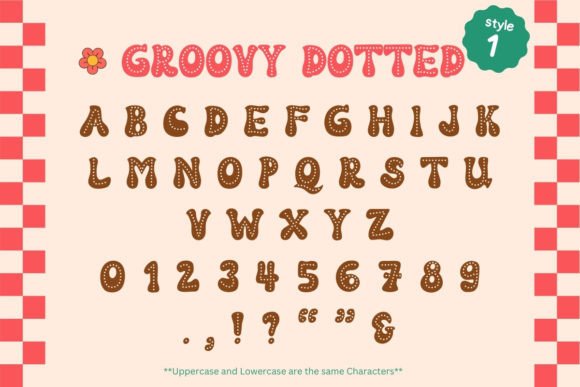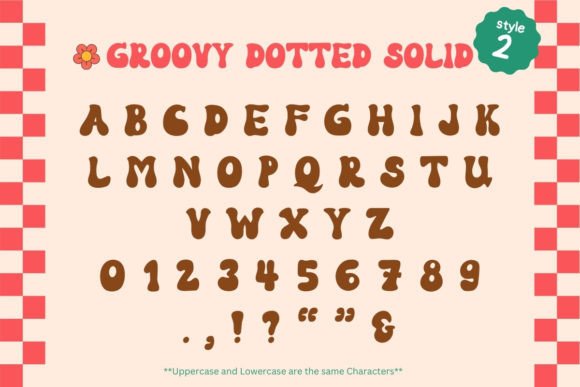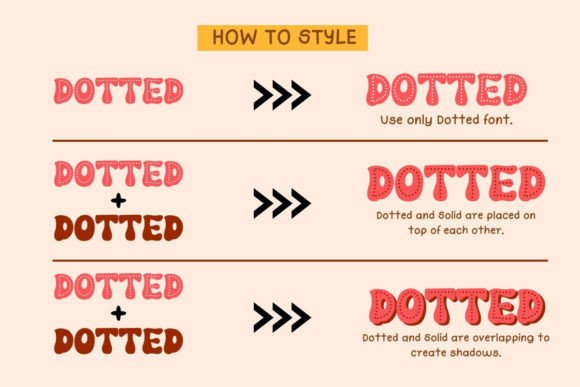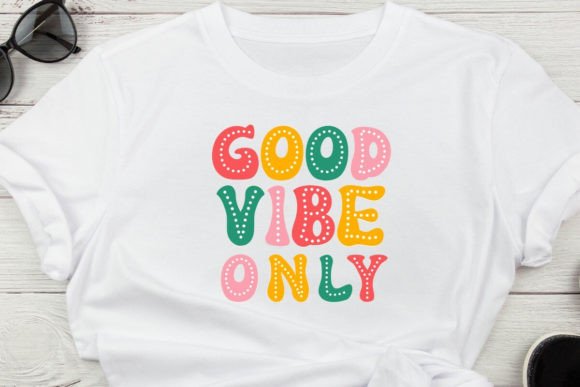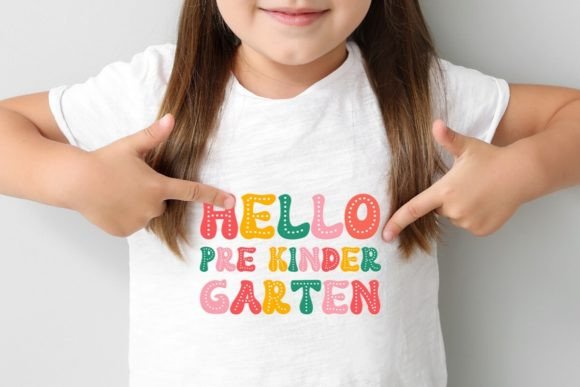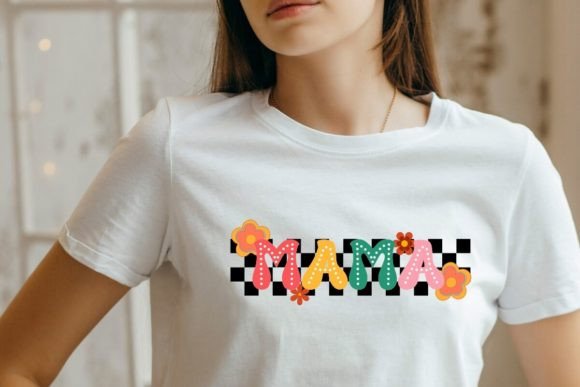
Introduction to Groovy Dotted Font
Introducing “Groovy Dotted” a retro groovy-style font combined with a playful dotted design, creating a unique and funny display font with a personalized vintage feel.
Perfect for adding a touch of nostalgia to your T-shirts, branding, posters, custom DIY craft projects, quotes, personalized names, and more, “Groovy Dotted” delivers a fun and creative vibe to all your designs .
Key Features of Groovy Dotted Font